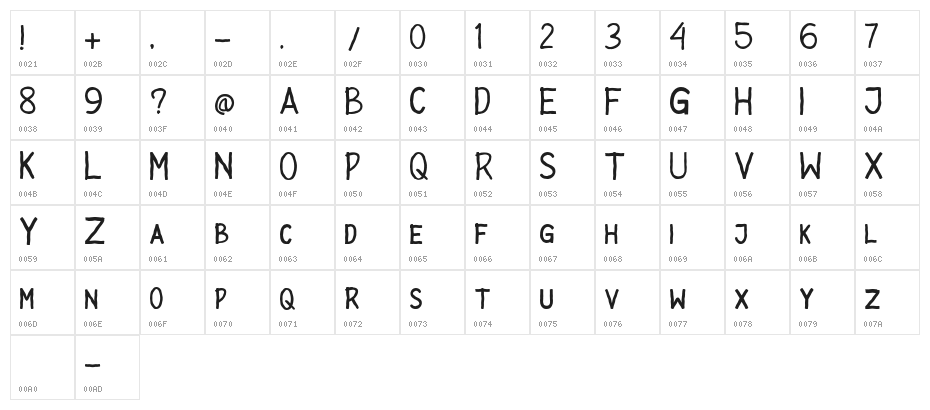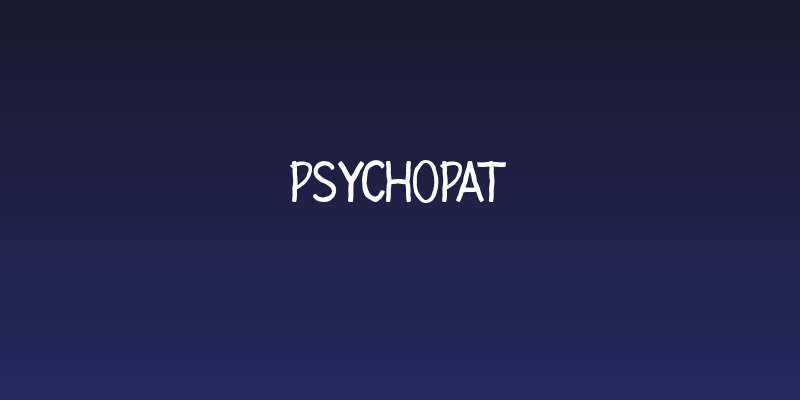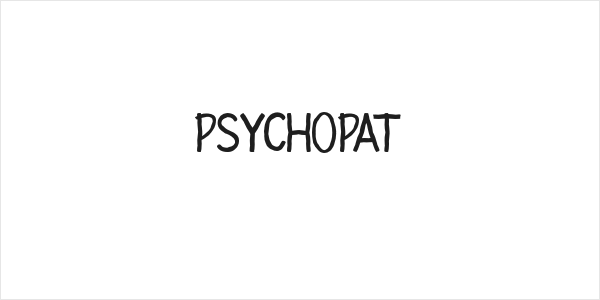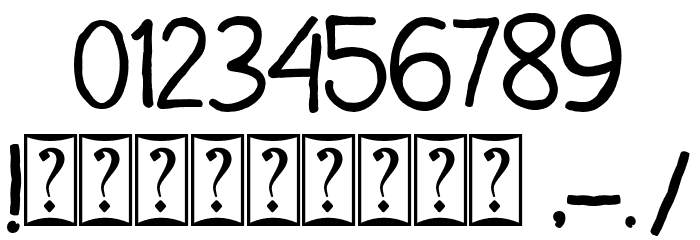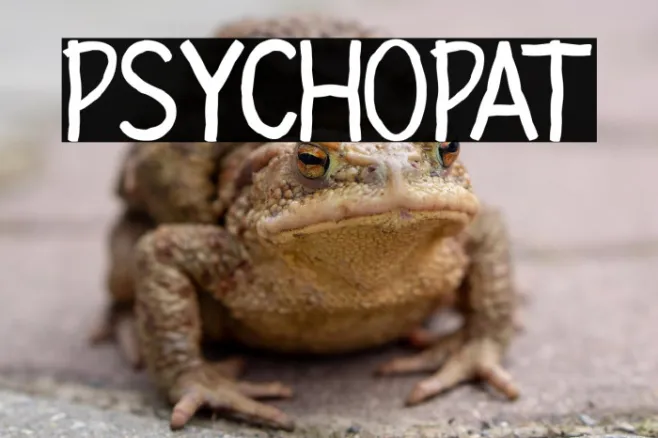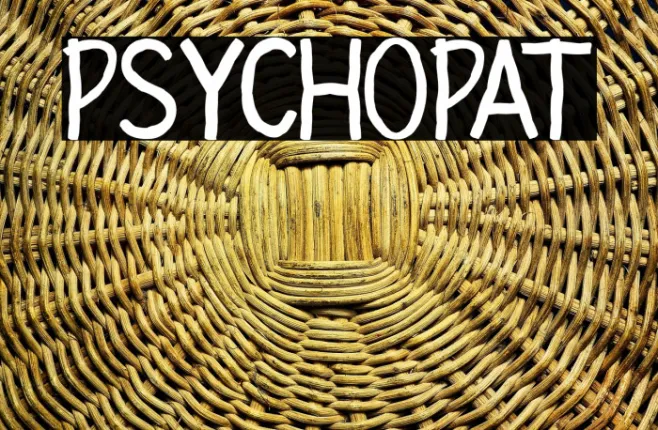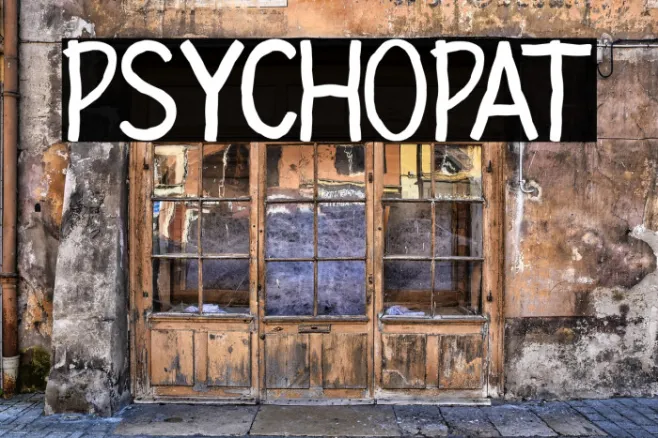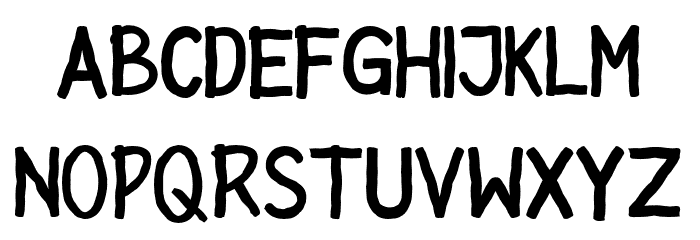
PSYCHOPAT Font
PSYCHOPAT Description
This font features a bold, hand-drawn style with a slightly irregular and playful appearance. The characters are thick and have a casual, informal feel, reminiscent of graffiti or street art. The uppercase letters are prominent and stand out with their uneven lines, giving a sense of movement and energy. The numbers follow the same style, maintaining consistency throughout the font. The special characters are creatively designed, adding to the overall quirky and artistic vibe. This font is perfect for projects that require a bold and expressive touch.